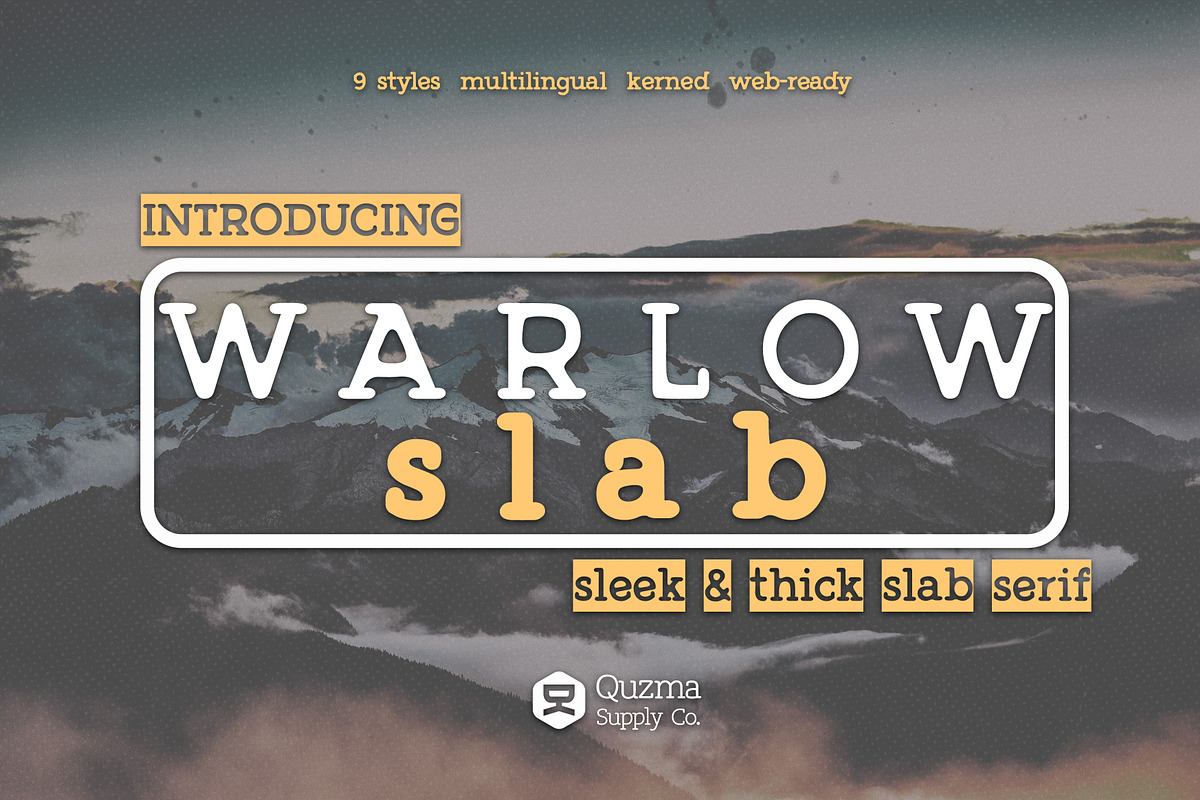
Introducing Warlow Slab Font Free Download, a robust and versatile slab serif typeface designed to make a bold statement. With its strong, block-like serifs and clean lines, this font is perfect for headlines, logos, branding, and projects that require a commanding presence. Its modern yet timeless design ensures readability and impact across various mediums. Download Warlow Slab Font Free Download to explore its features in personal projects. For commercial use, please ensure you purchase the appropriate license. Elevate your designs with the strength and clarity of Warlow Slab Font Free Download